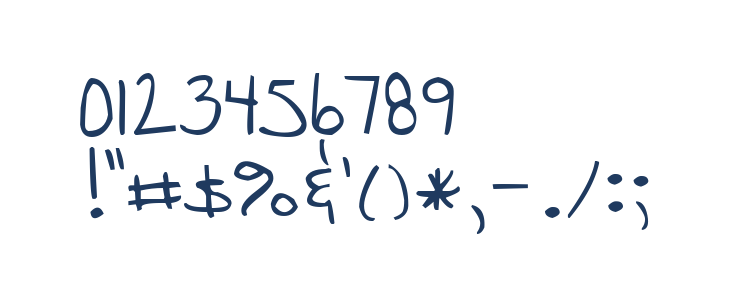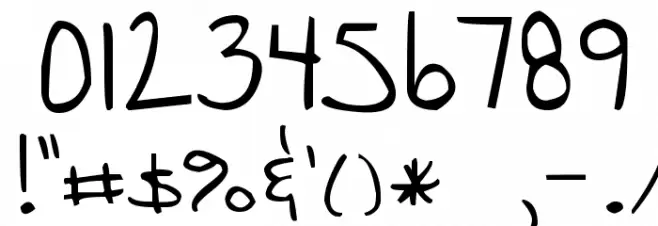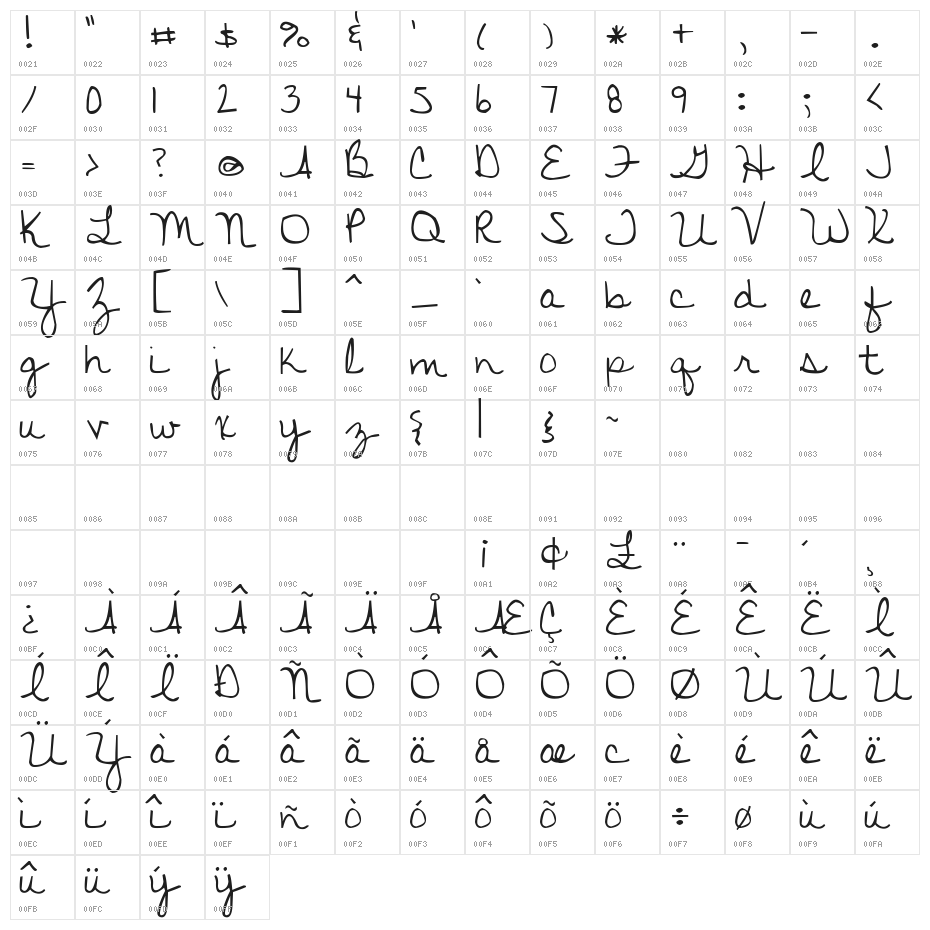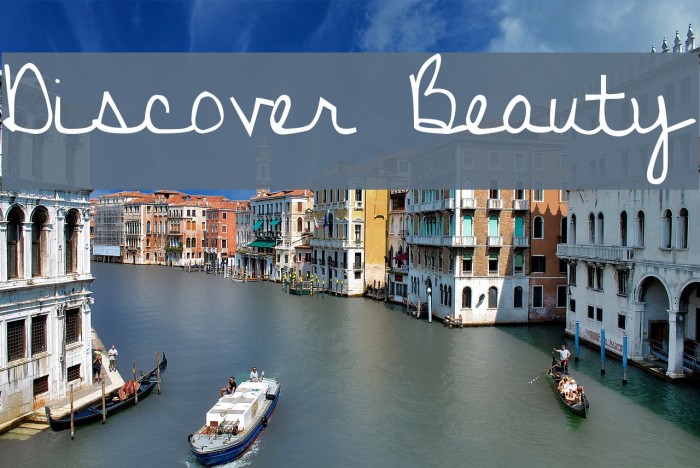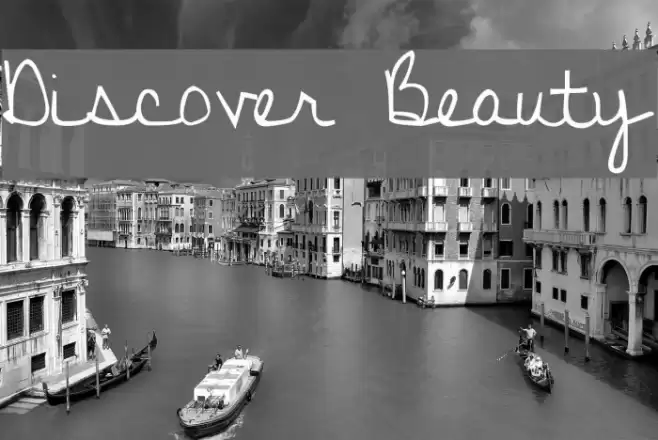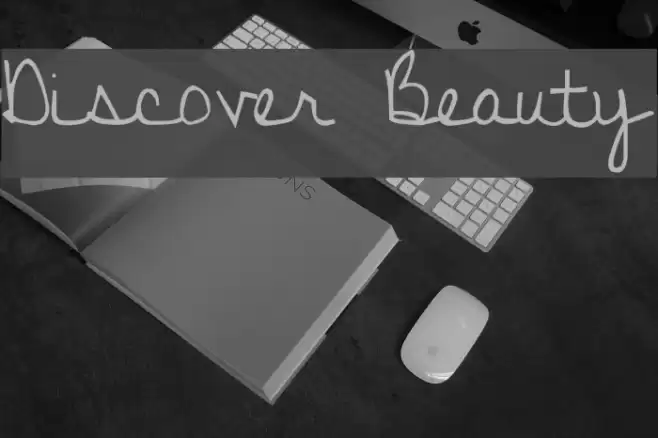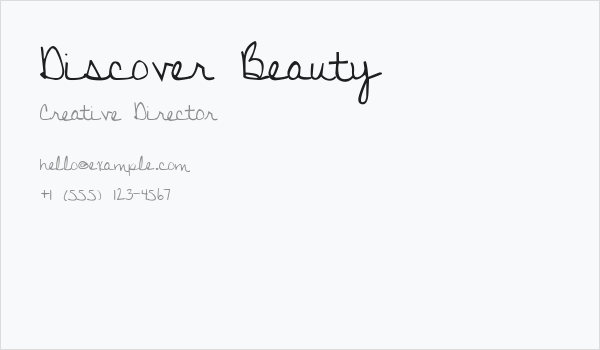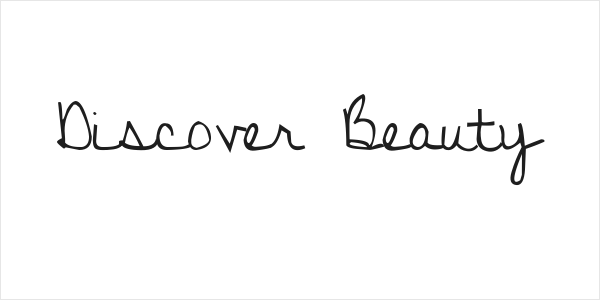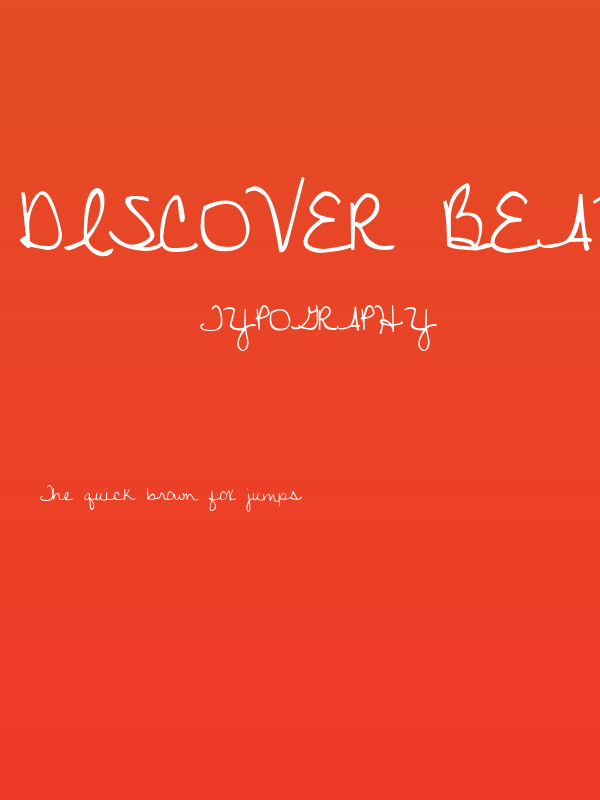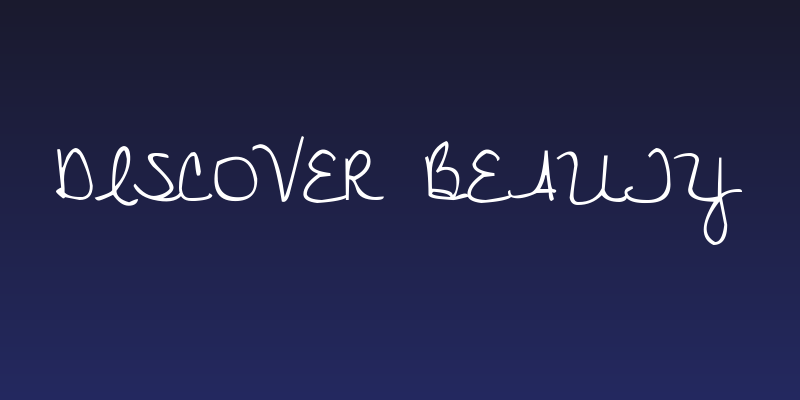
Discover Beauty Font
Discover Beauty Description
This font features a playful and whimsical handwritten style, characterized by its fluid and flowing letterforms. The uppercase letters are slightly more structured, while the lowercase letters exhibit a more casual and relaxed appearance. The numerals maintain the same playful aesthetic, with rounded edges and a consistent stroke width. Special characters are integrated seamlessly, adding to the font's versatility. Overall, this font exudes a sense of creativity and spontaneity, making it ideal for projects that require a personal touch.
| Use Case | Headlines, Creative projects, Personal branding |
| Proposed Projects | Ideal for greeting cards, invitations, personal branding, and creative projects that require a personal and informal touch. |